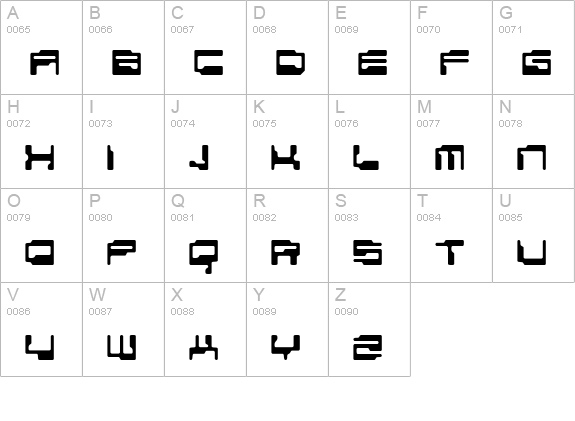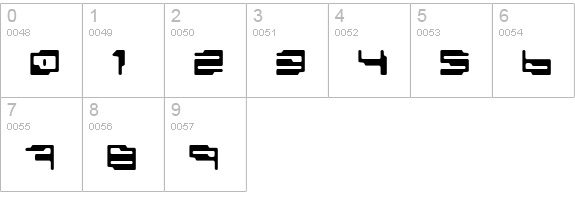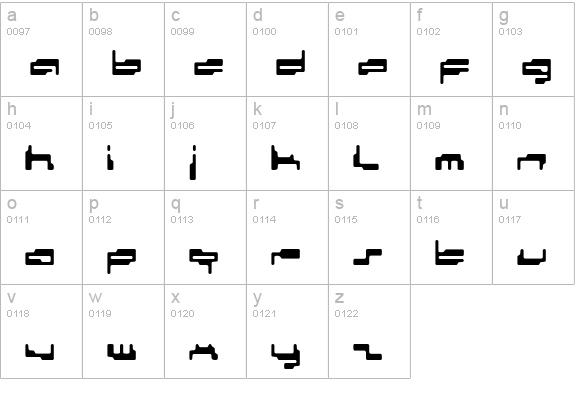
personal computer Font Details
Below you can preview personal computer in uppercase [A-Z], lowercase [a-z] and numbers [0-9]. You can also read the author's notes and license information before downloading.
Introducing the captivating charm of our personal computer font! With its sleek and modern design, this font is the perfect companion for all your digital projects. Whether you're creating a professional presentation, designing a unique logo, or simply adding a touch of elegance to your personal documents, this font is guaranteed to make a lasting impression. What sets this font apart is not only its impeccable style, but also its incredible affordability. Yes, you heard it right - this font is absolutely free! We believe that everyone should have access to high-quality design resources without breaking the bank, and that's why we are delighted to offer this font to you at no cost. To make it even more convenient for you, this font is freely available to download at FontsMarket.com. With just a few clicks, you can bring this font to life on your personal computer and start incorporating its versatility into your creative endeavors. Whether you're a professional designer or a casual enthusiast, this font is sure to enhance your artistic vision. With its wide range of characters and impeccable clarity, this font effortlessly blends elegance and functionality. From bold headlines to delicate captions, this font is versatile enough to adapt to any design concept you can imagine. Its clean lines and precise curves provide a polished and professional look, making it an ideal choice for any project. So why wait? Don't miss out on the opportunity to elevate your design game with this exquisite personal computer font. Download it for free at FontsMarket.com and unlock a world of creative possibilities. Embrace the freedom of expression and let this font be your companion in bringing your visions to life.